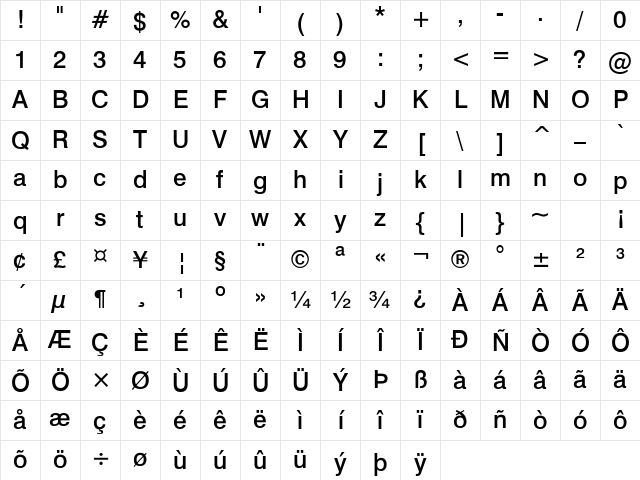
HalvettMedium is a composed and adaptable typeface that performs quietly and consistently across a wide range of design contexts.
Pro Tip: Use HalvettMedium in both headline and body roles to test its range before committing to a single application.